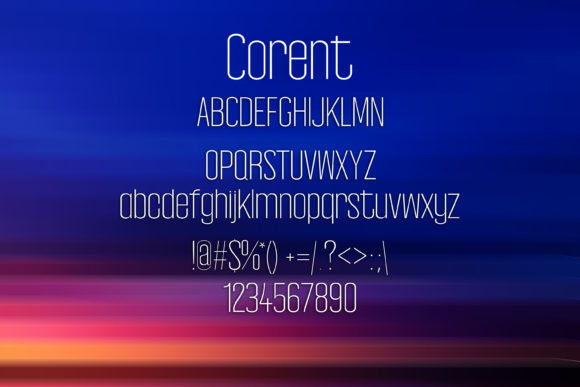
Introducing Corent Font: A Modern Twist on Traditional Sign Painting
In the world of typography, fonts play a crucial role in conveying messages, expressing creativity, and setting the tone for a brand or design. For designers and crafters, finding the perfect font can be a daunting task, especially when looking for something that combines classic inspiration with modern flair. This is where Corent Font comes in – a stunning sans serif font that draws inspiration from traditional sign painting, with a clean and minimal twist.
The Inspiration Behind Corent Font
Corent Font is rooted in the rich history of sign painting, an art form that has been around for centuries. Traditional sign painting is known for its bold, expressive lettering and attention to detail. Corent Font takes these classic elements and infuses them with a modern twist, resulting in a font that is both timeless and contemporary.
The font’s design is characterized by its clean lines, simple shapes, and a minimalist approach. This makes Corent Font perfect for modern designs that require a touch of sophistication and elegance. Whether you’re working on a branding project, creating a logo, or designing a website, Corent Font is an excellent choice.
Key Features of Corent Font
So, what sets Corent Font apart from other fonts? Here are some of its key features:
- Clean and Minimal Design: Corent Font boasts a clean and minimal design that makes it perfect for modern designs. Its simplicity ensures that your message is conveyed clearly and effectively.
- Sans Serif Elegance: The font’s sans serif design gives it a sleek and sophisticated look that’s perfect for a wide range of applications.
- Traditional Sign Painting Inspiration: Corent Font’s inspiration from traditional sign painting gives it a unique and distinctive feel that’s sure to grab attention.
- Modern Twist: The font’s modern twist ensures that it remains fresh and relevant, making it perfect for contemporary designs.
Uses of Corent Font
Corent Font is a versatile font that can be used in a variety of applications, including:
- Branding and Logo Design: Corent Font’s unique design makes it perfect for branding and logo design projects.
- Website Design: The font’s clean and minimal design makes it an excellent choice for website design, ensuring that your website looks modern and sophisticated.
- Print Design: Corent Font can be used in a range of print design projects, from brochures and flyers to posters and business cards.
- Crafting and DIY Projects: The font’s traditional sign painting inspiration makes it perfect for crafting and DIY projects, such as handmade cards and signs.
Why Choose Corent Font?
With so many fonts available, why choose Corent Font? Here are just a few reasons:
- Unique Design: Corent Font’s unique design sets it apart from other fonts, ensuring that your designs stand out.
- Versatility: The font’s versatility makes it perfect for a wide range of applications.
- Easy to Read: Corent Font’s clean and minimal design makes it easy to read, ensuring that your message is conveyed clearly.
- High-Quality: The font is designed to high-quality standards, ensuring that it looks great in any design.
In conclusion, Corent Font is a stunning sans serif font that draws inspiration from traditional sign painting, with a modern twist. Its clean and minimal design makes it perfect for modern designs, while its unique features ensure that it stands out from other fonts. Whether you’re a designer or crafter, Corent Font is an excellent choice for any project. With its versatility, ease of use, and high-quality design, Corent Font is sure to become a favorite in your font collection.